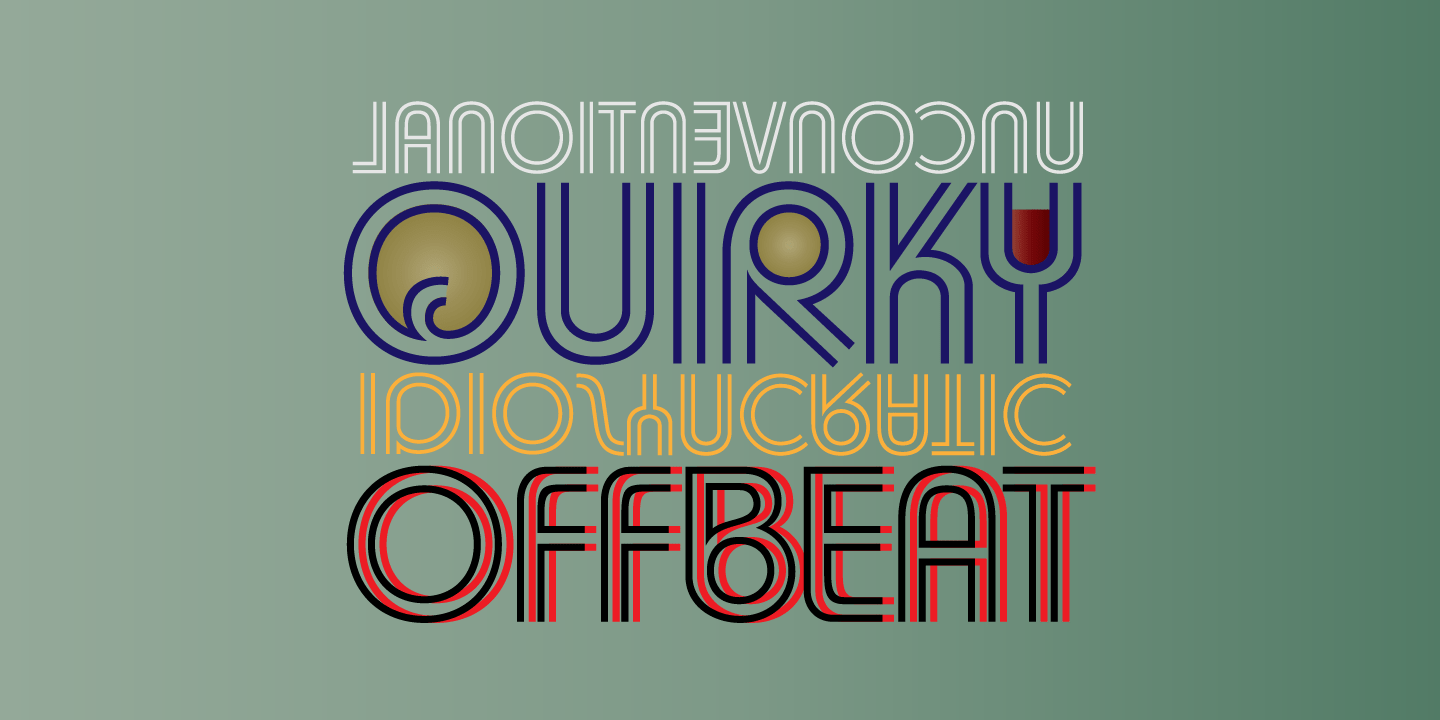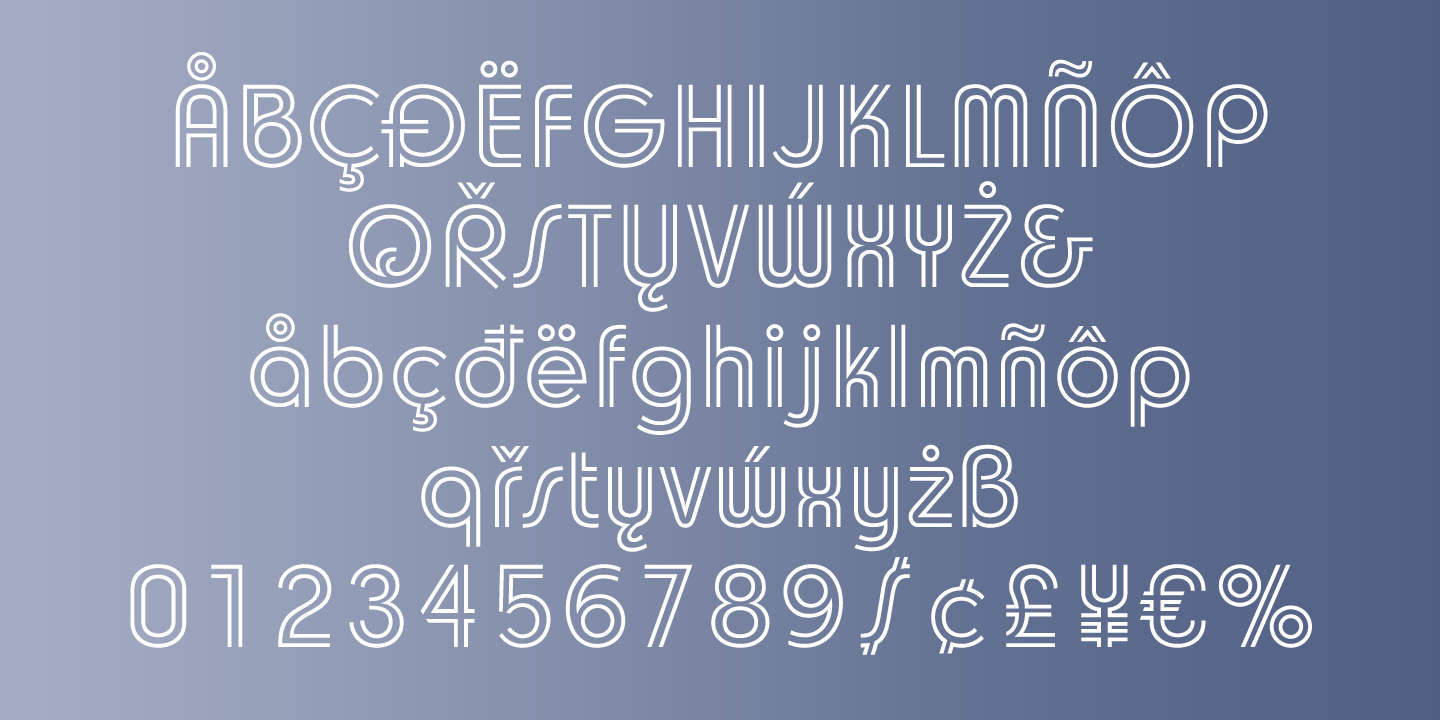
Churchward Design NoEnd
Churchward Design NoEnd is just one of the dizzying array of typefaces from Joseph Churchward's Design Family. It possesses the classic geometric funk type aesthetic of the early 1970's. No End is an outline version of the Regular weight with the ends of the straight strokes left open. It's an interesting take on an outline design that further underscores that signature quirkiness that only Joseph Churchward could conjure up!
Churchward Design No End supports an extended character set that covers many western and central European languages as well as both proportional and tabular figures.